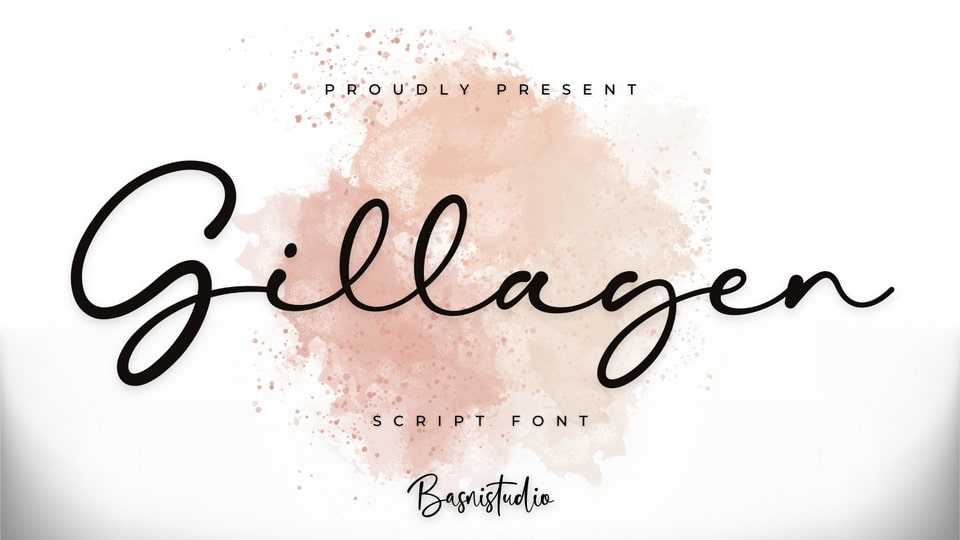
Download Gillagen font, a script typeface that adds a elegant, versatile touch to everything from branding and social media to invitations and packaging.